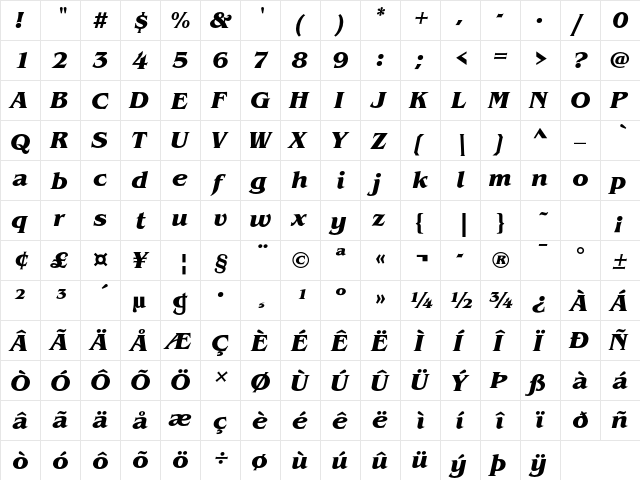
ITC Benguiat Std Bold Italic Font Preview
| Designer | Ed Benguiat |
Design Context for ITC Benguiat Std Typeface
ITC Benguiat Std offers clean, dependable letterforms without strong stylistic allegiance, making it a practical choice for designers who need flexibility. Its italic angle brings a sense of urgency and motion to the letterforms. The heavy weight commands attention and anchors typographic hierarchies.
Pro Tip: Try ITC Benguiat Std for annotation and caption copy alongside an upright companion — the contrast in angle creates a dynamic but ordered typographic system.